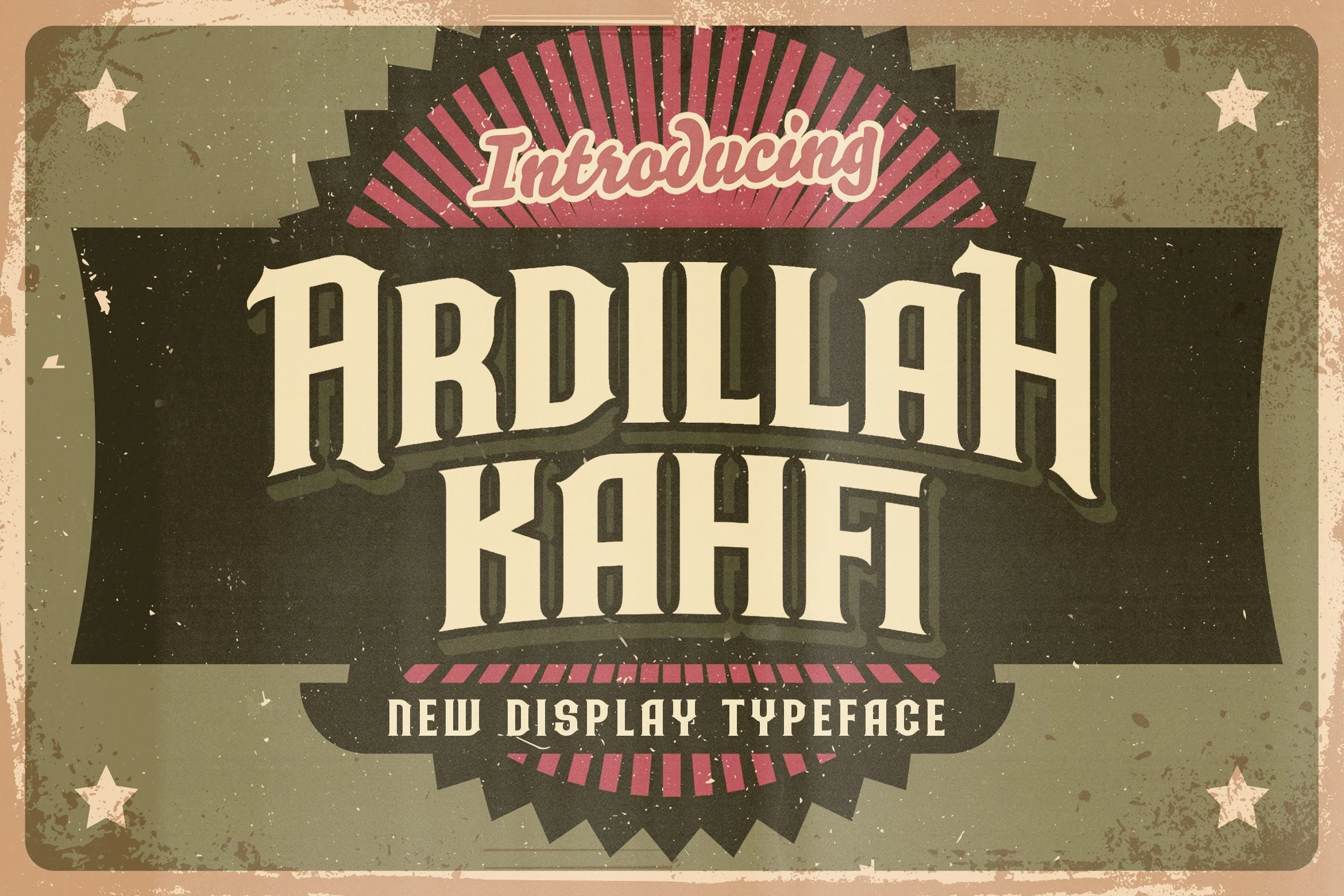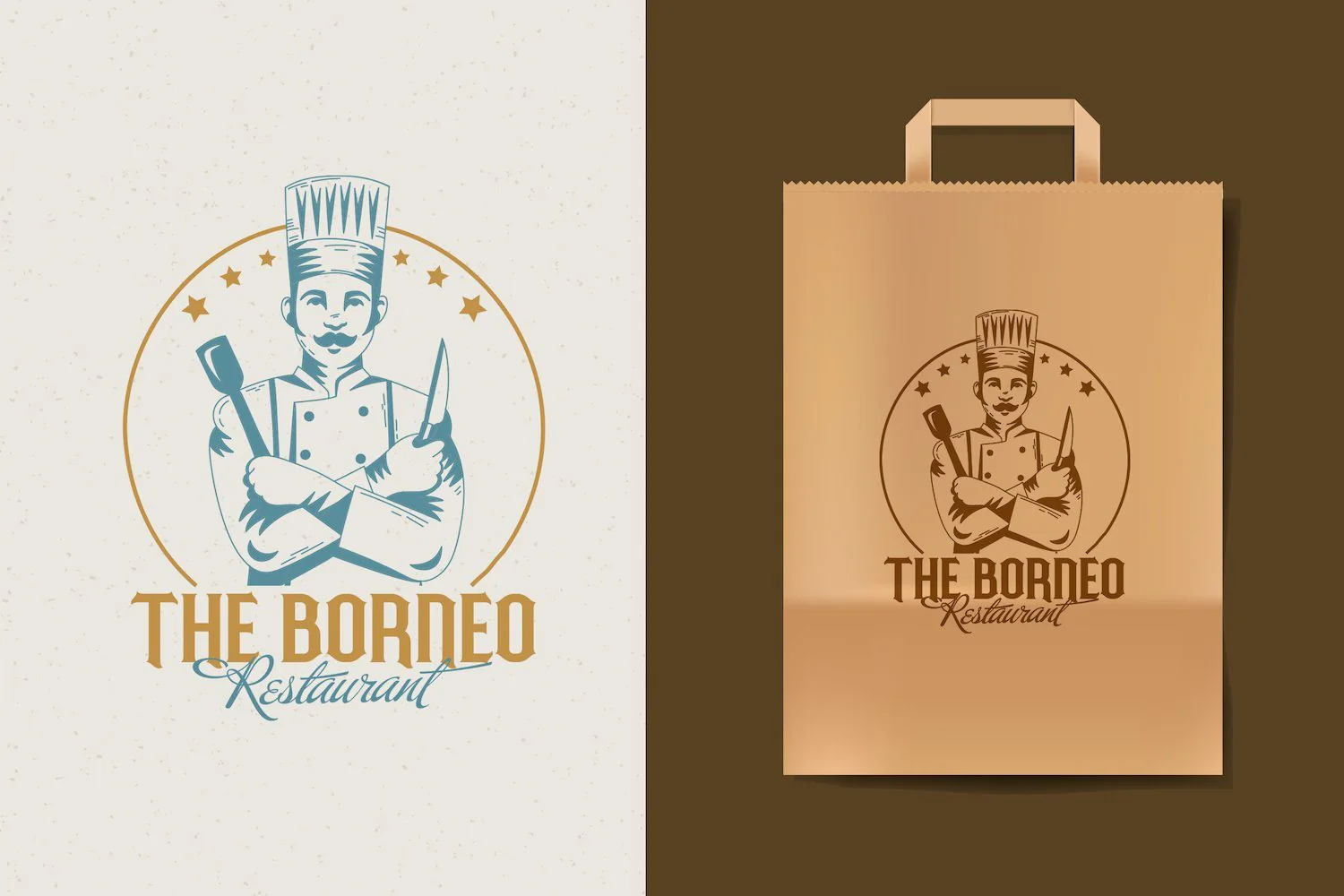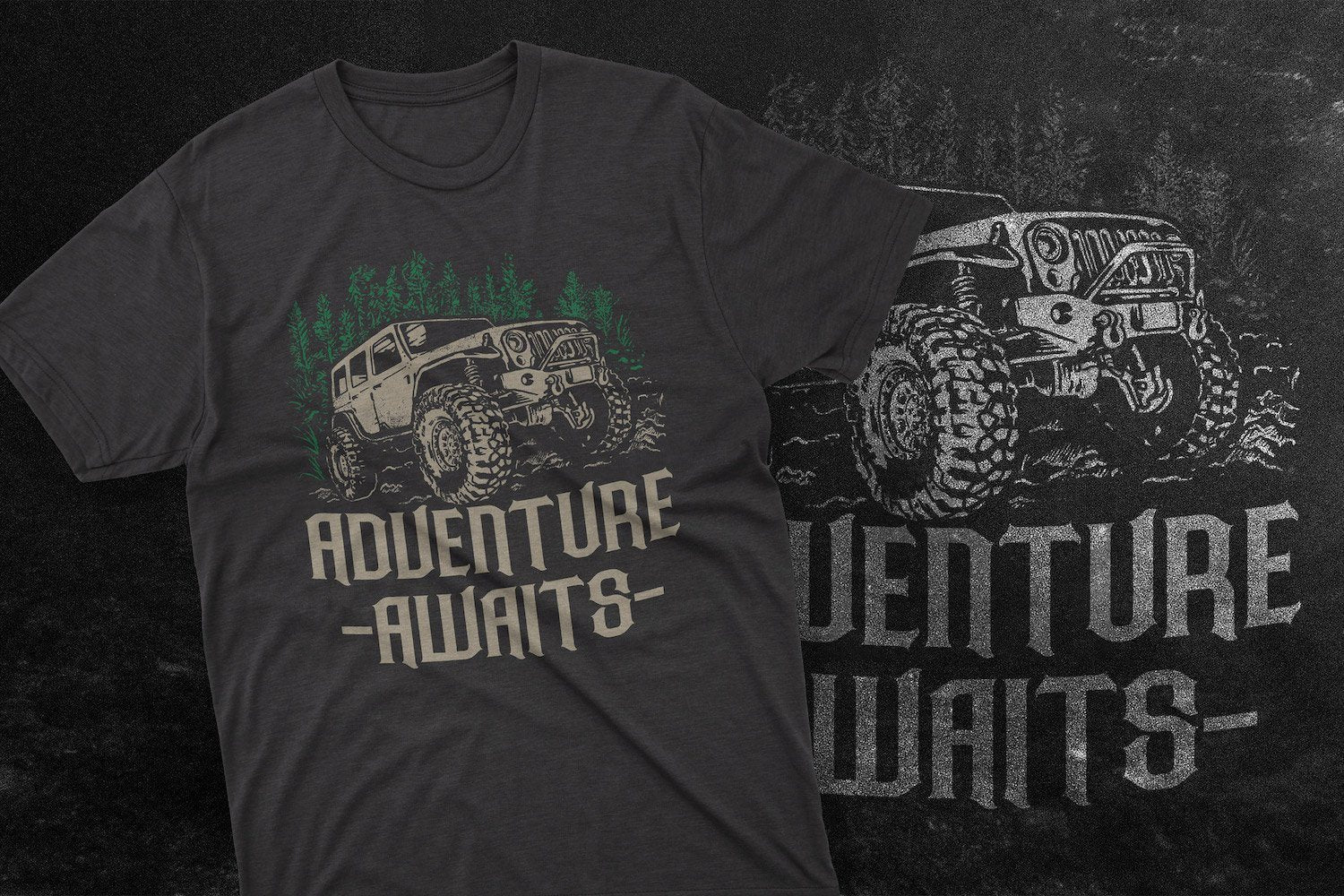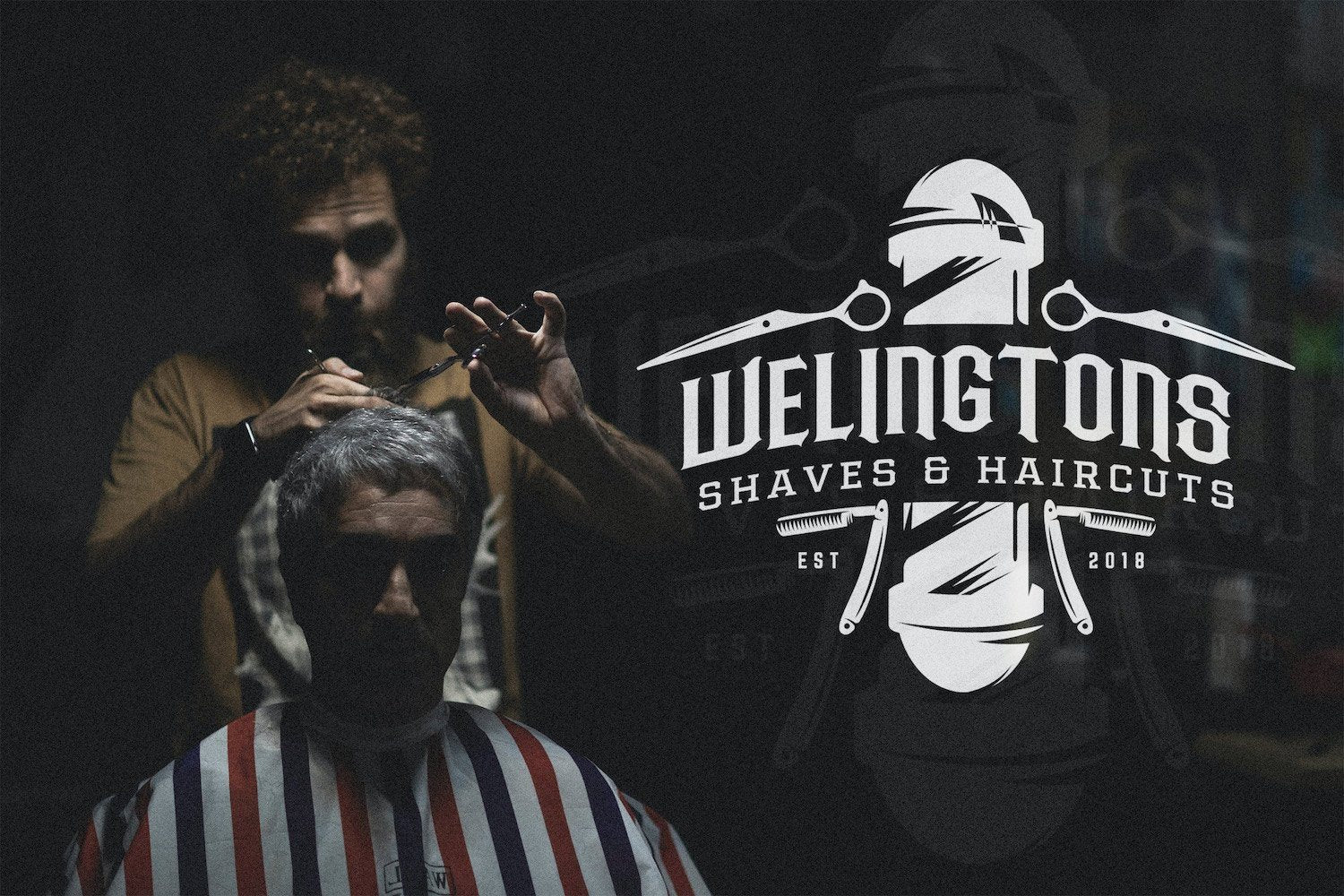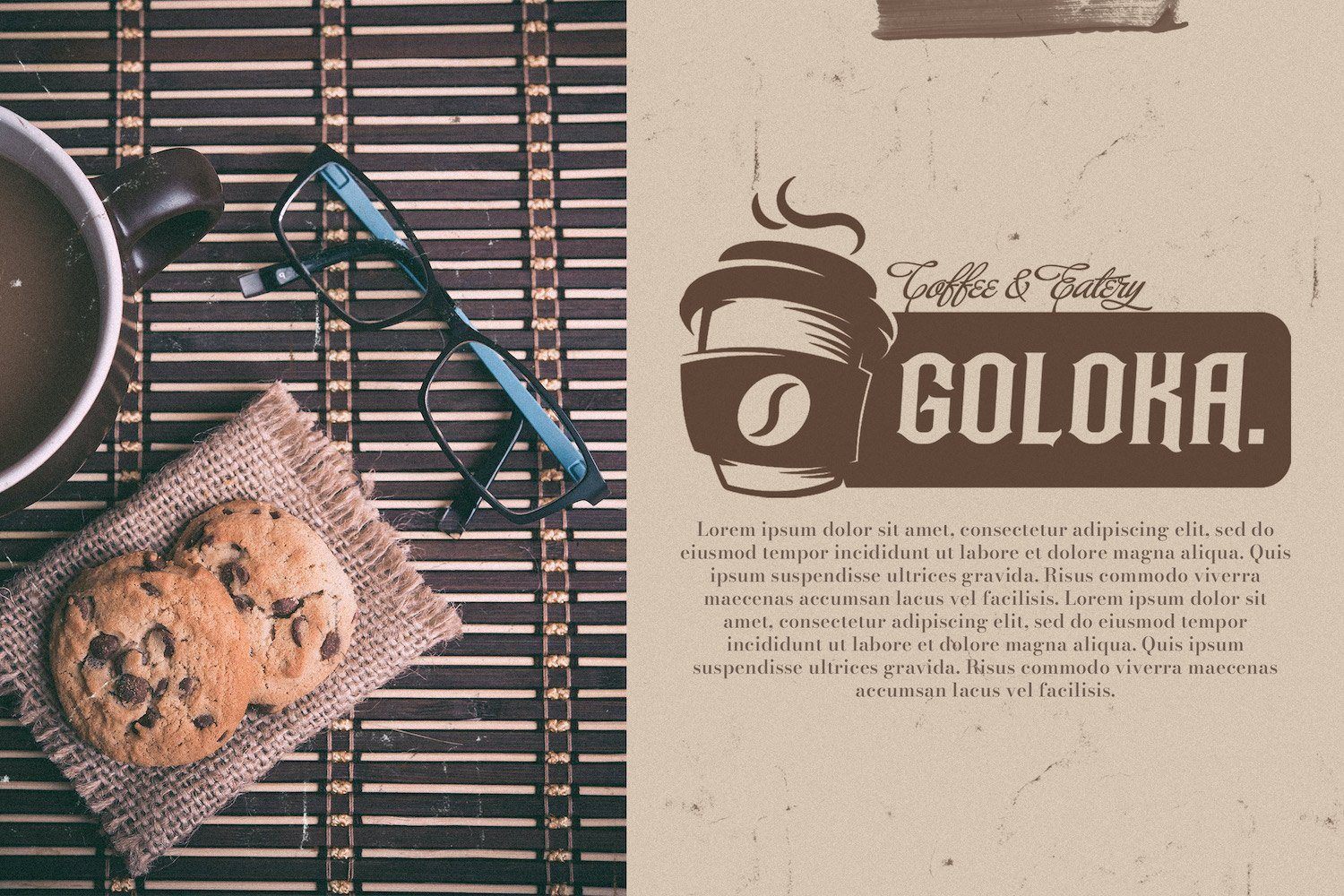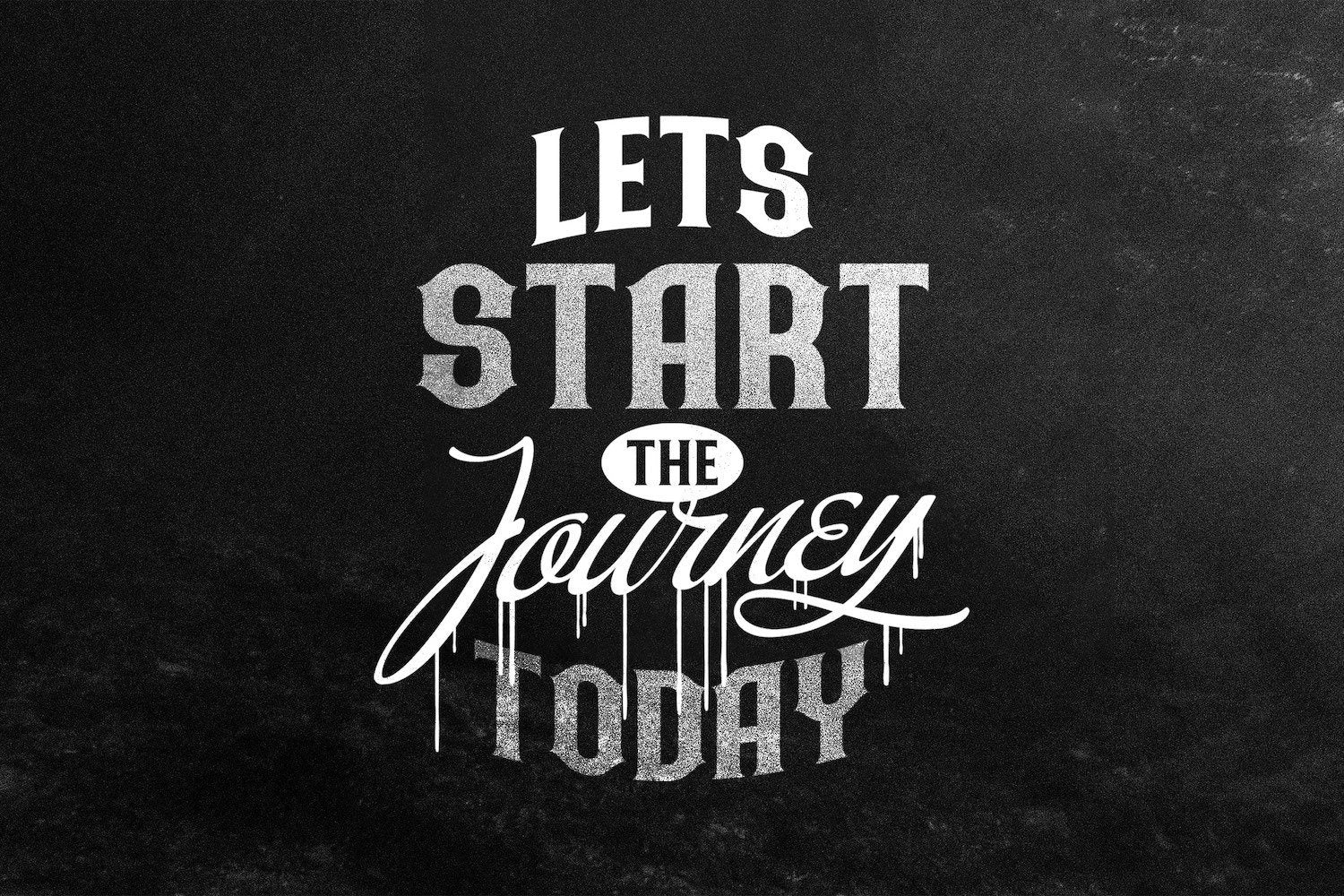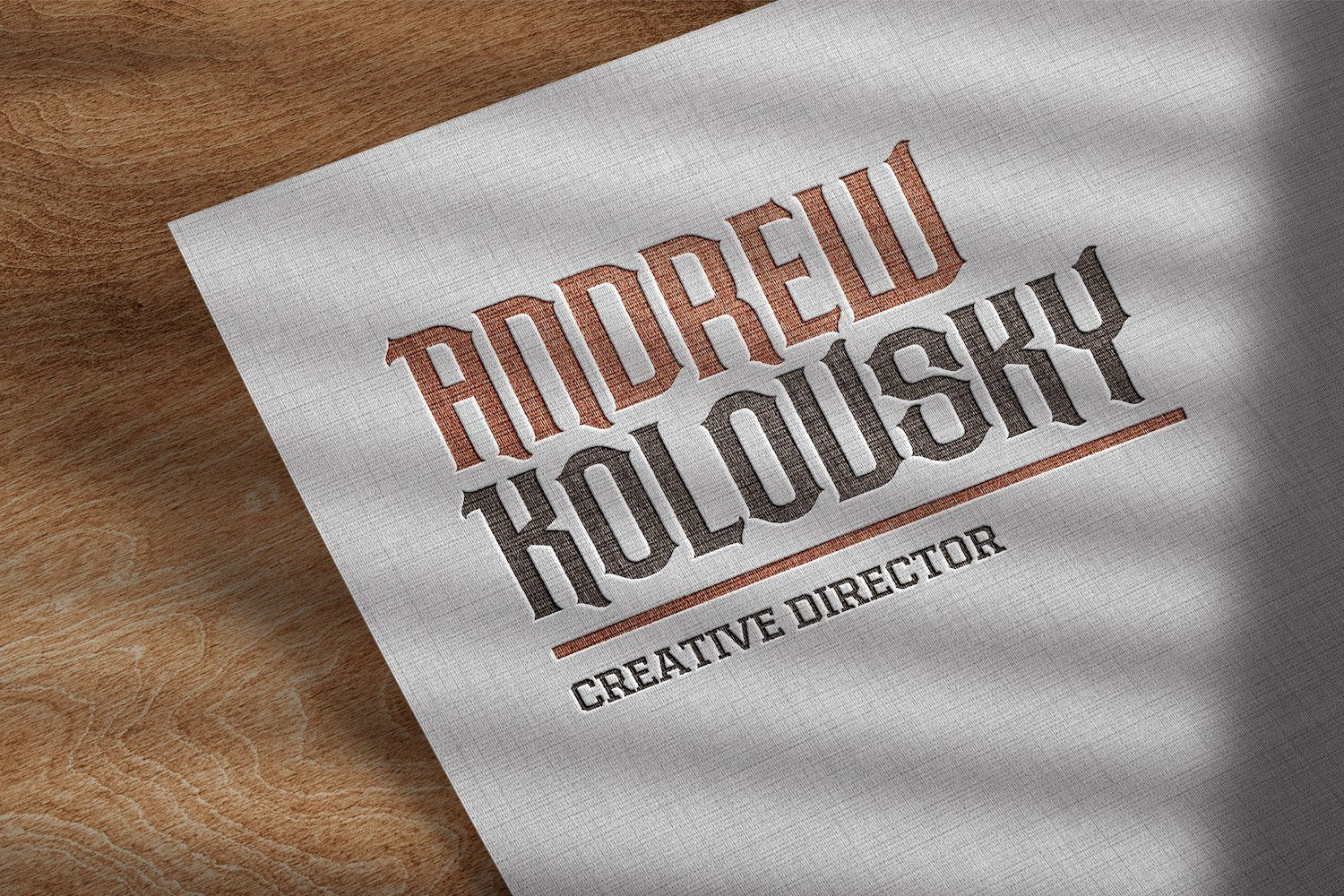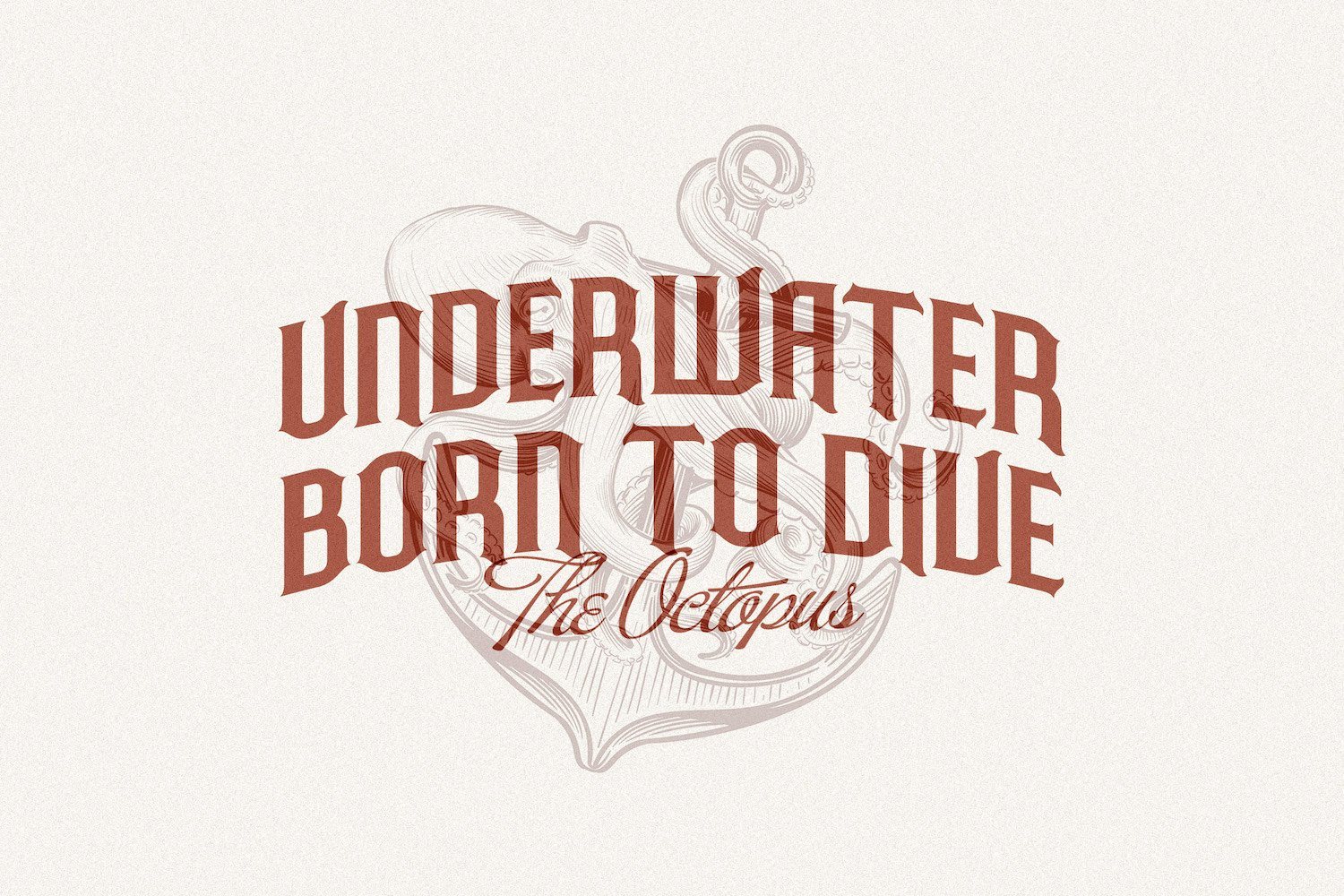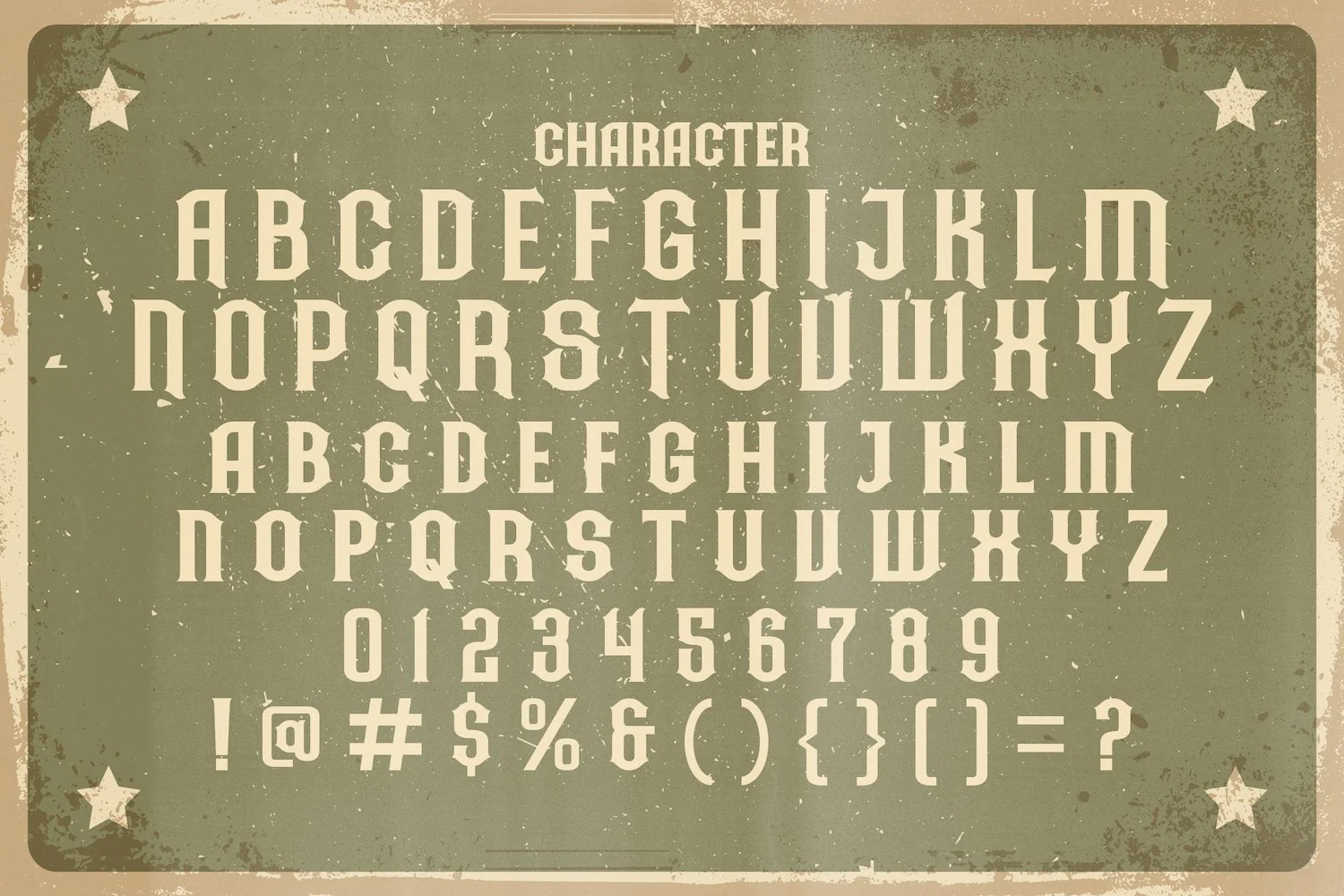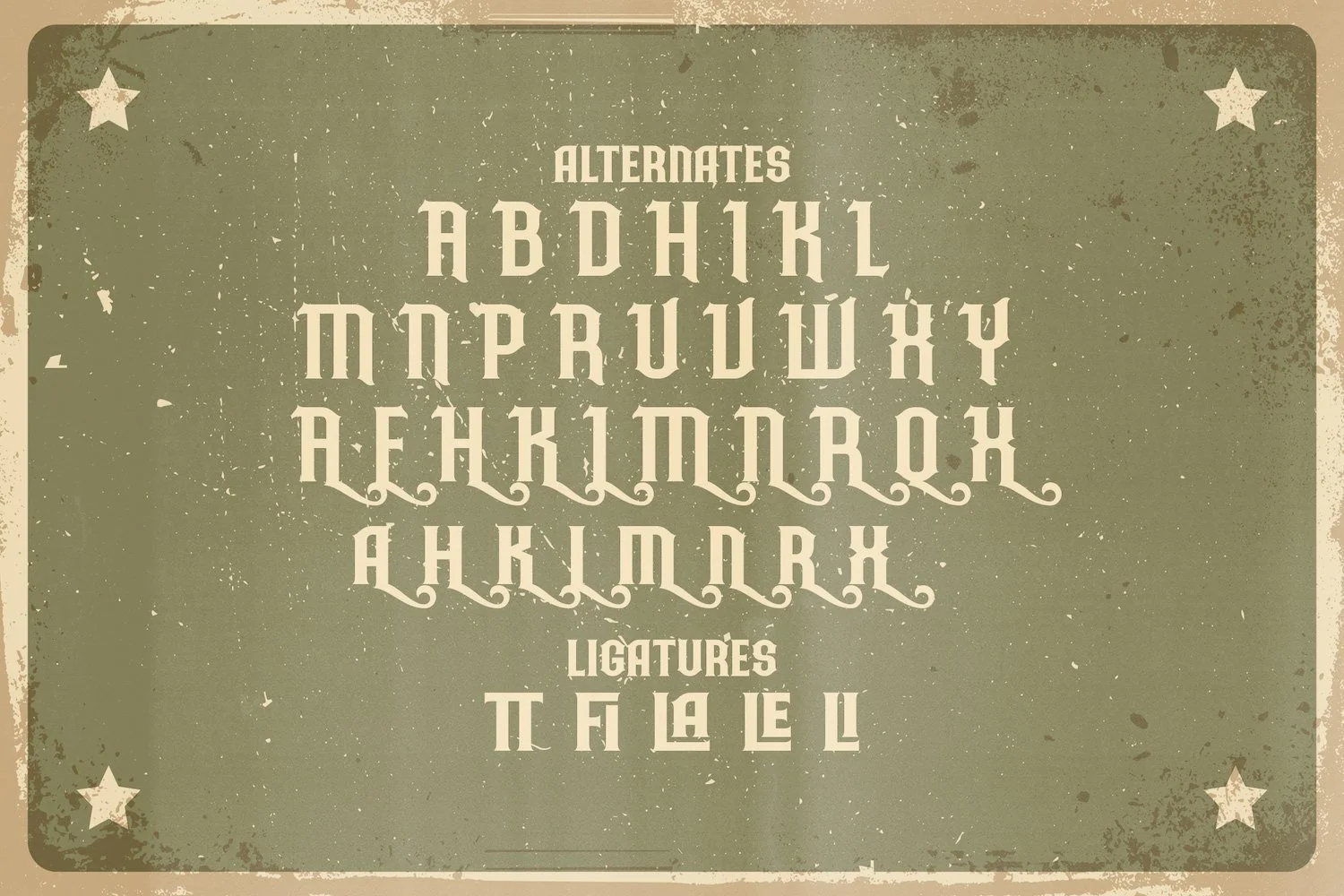
Ardilah Kafi - Victorian Decorative Font
Introducing Ardilah Kafi - Victorian Decorative Font
Ardilah Kafi is a unique, vintage and elegant decorative font with victorian style. Ardilah Kafi feels playfully nostalgic and delivers an incredible vintage aesthetic. Inspired by vintage tattoo design, Ardilah Kafi is an absolutely stunning and eye-catching typeface. This typeface will look truly outstanding in a wide range of modern and classic designs, with its romantic and bold formation, as well as its attention to detail.
Introducing Ardilah Kafi - Victorian Decorative Font
Ardilah Kafi is a unique, vintage and elegant decorative font with victorian style. Ardilah Kafi feels playfully nostalgic and delivers an incredible vintage aesthetic. Inspired by vintage tattoo design, Ardilah Kafi is an absolutely stunning and eye-catching typeface. This typeface will look truly outstanding in a wide range of modern and classic designs, with its romantic and bold formation, as well as its attention to detail.